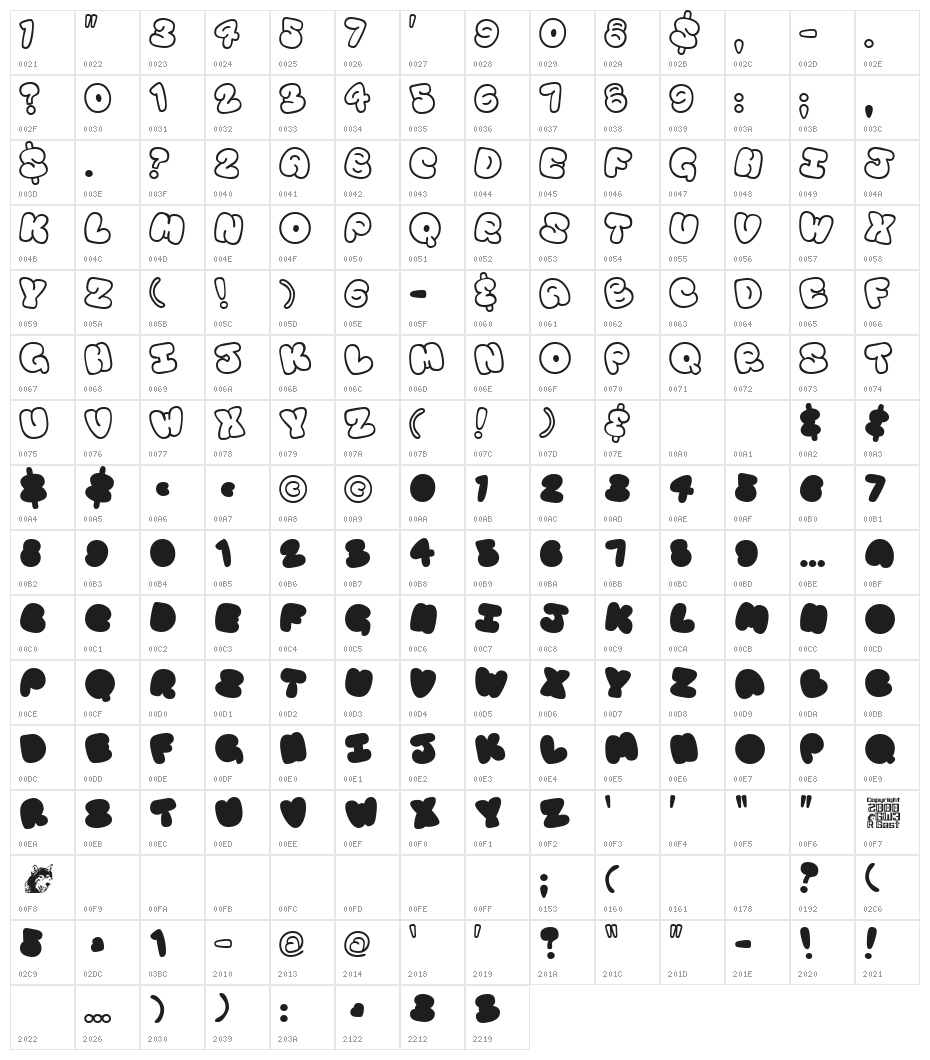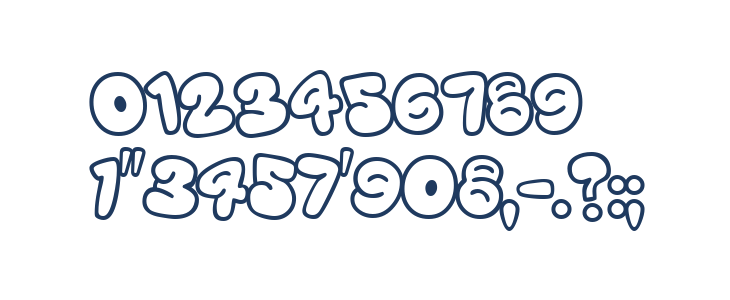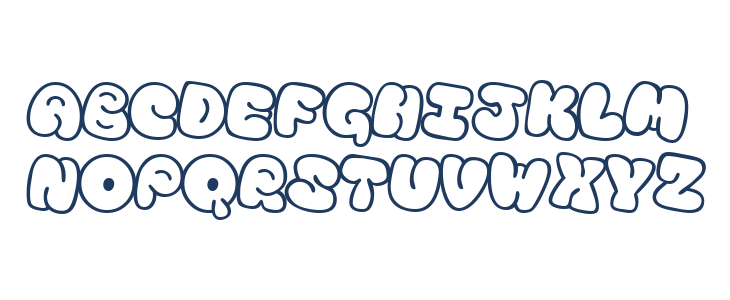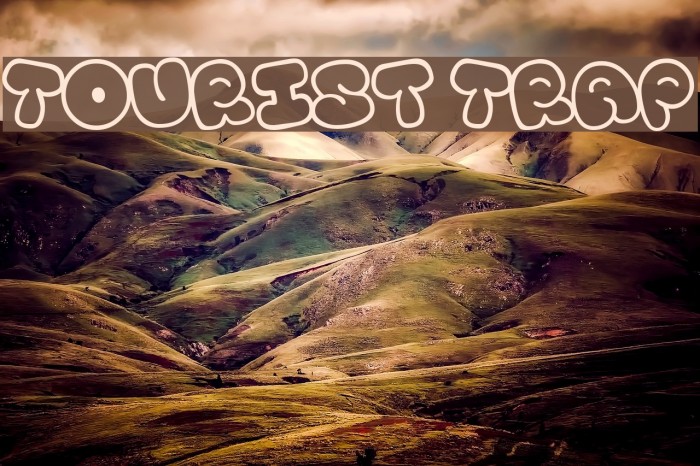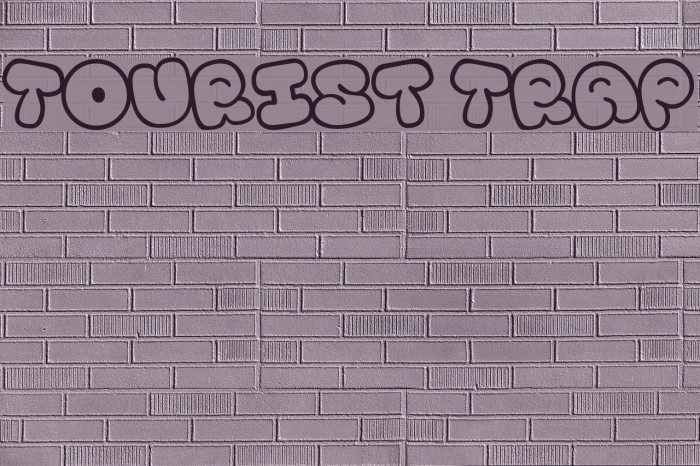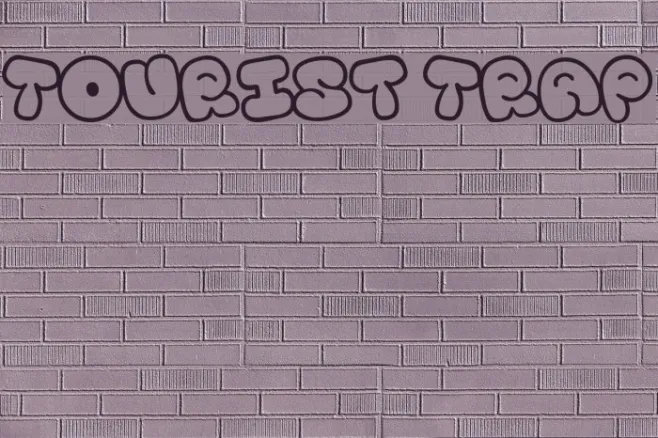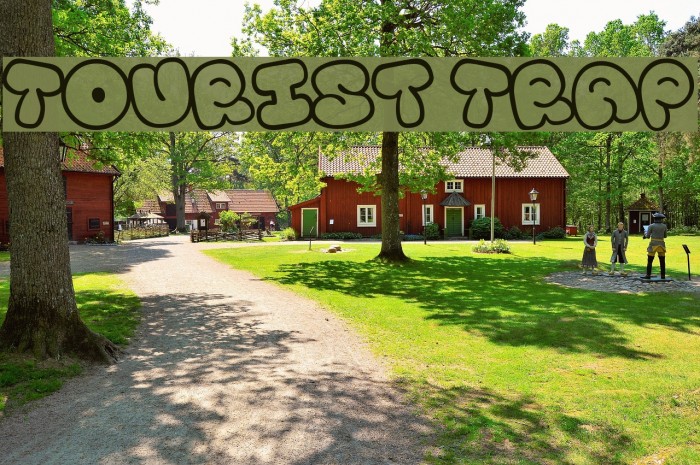
Tourist Trap Font
Tourist Trap Description
This playful and bold font features a bubble-like, rounded style that exudes a sense of fun and whimsy. Each character is outlined, giving it a three-dimensional appearance that stands out. The letters are uniformly thick, with a consistent stroke width that adds to the font's cohesive look. The overall design is reminiscent of graffiti or comic book lettering, making it ideal for projects that require a lively and informal touch. The characters are well-spaced, ensuring readability while maintaining the font's distinctive style. This font is perfect for capturing attention and conveying a lighthearted, energetic vibe.
| Overall Style | Playful, Comic, Energetic |
| Proposed Projects | Ideal for children's book covers, party invitations, playful branding, and comic-style graphics. |